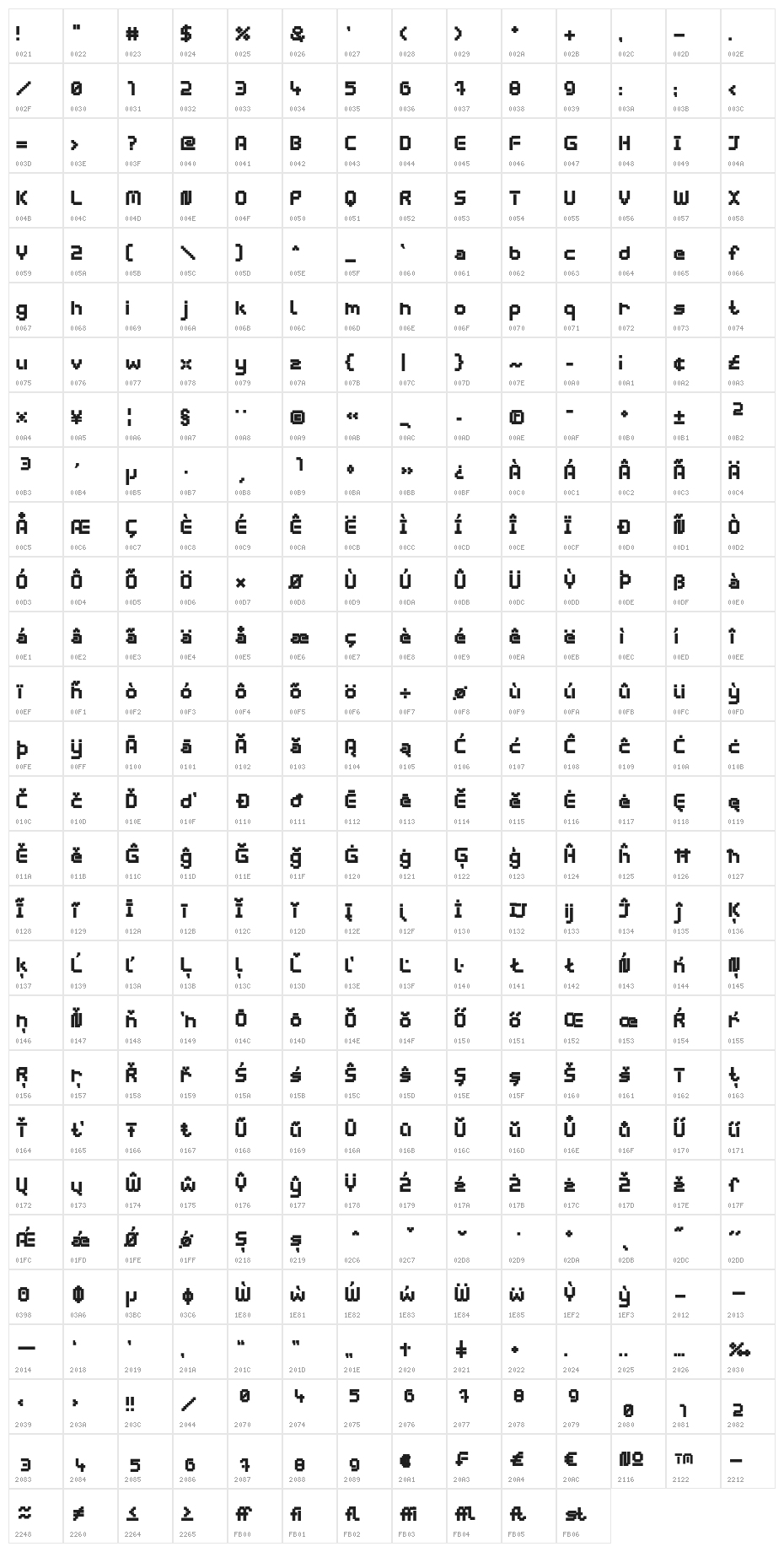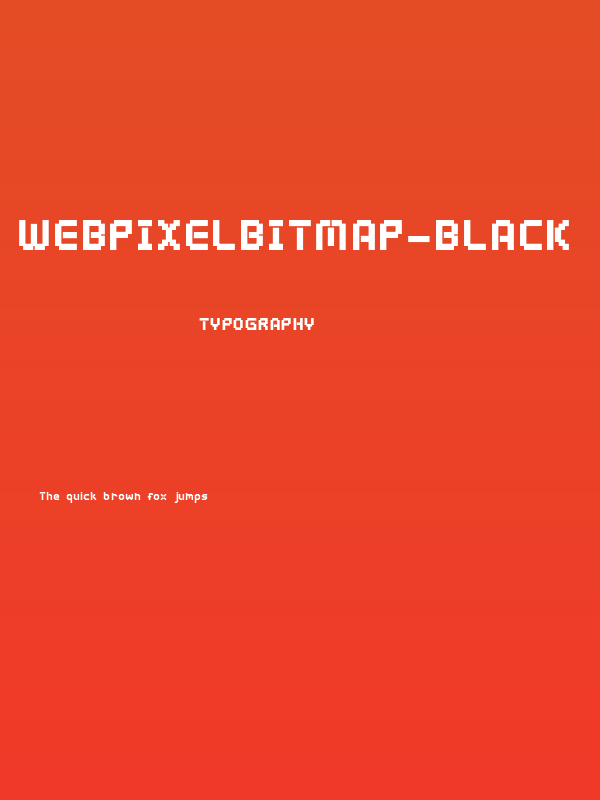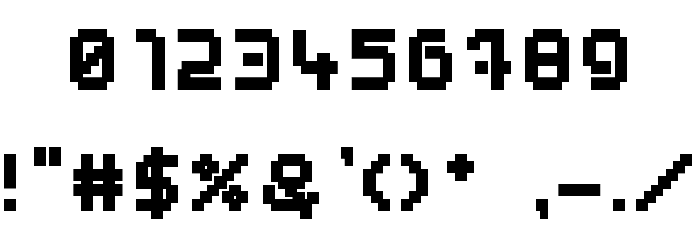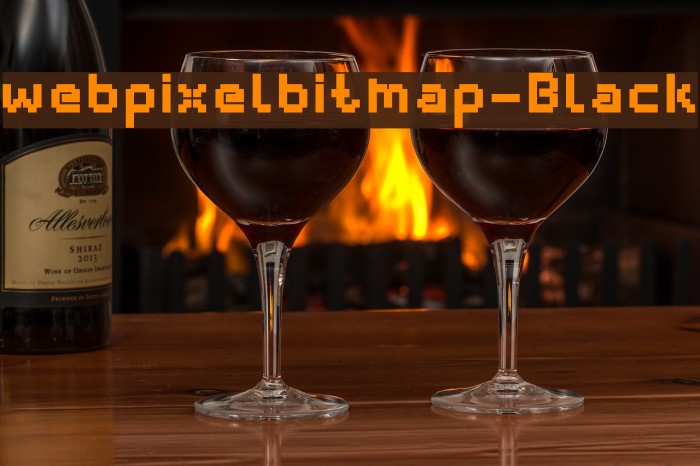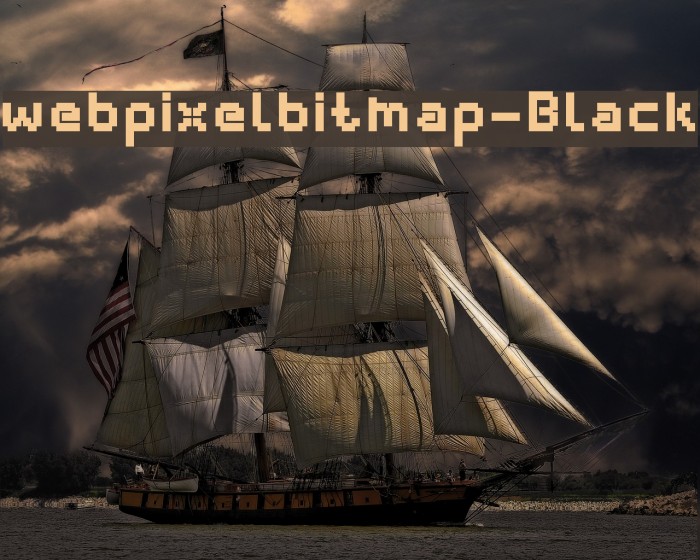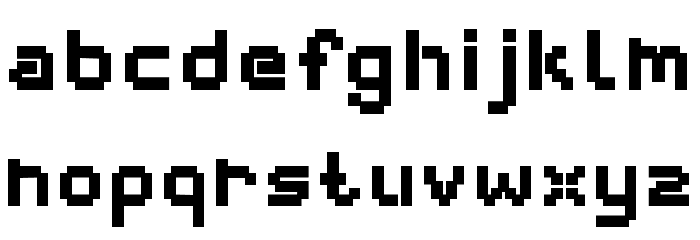
webpixelbitmap-Black Font
webpixelbitmap-Black Description
This font features a bold, pixelated design reminiscent of early digital displays and retro video games. Each character is constructed with a grid-like structure, giving it a blocky, geometric appearance. The uniformity in height and width across both uppercase and lowercase letters contributes to a cohesive and consistent look. The numerals and special characters maintain the same pixelated style, ensuring a seamless integration with the alphabet. This font's nostalgic aesthetic is perfect for projects that aim to evoke a sense of vintage digital technology.
| Use Case | Logos, Headlines, Digital Art |
| Proposed Projects | Ideal for video game design, retro-themed posters, digital art projects, and tech-related branding. |